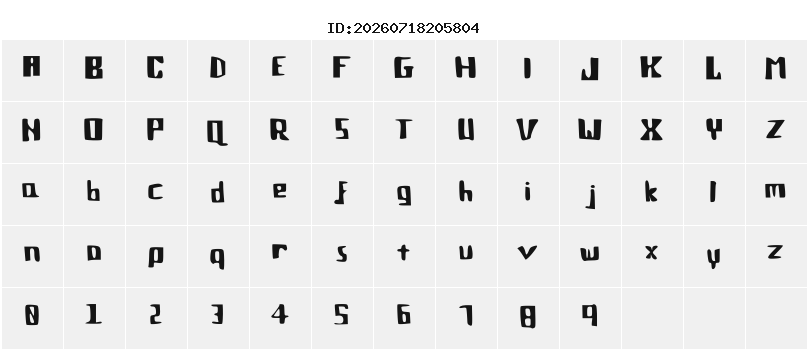
Cozumix Preview
• Font Name: Cozumix
• Full Font Name: Cozumix
About Cozumix.ttf
Cozumix.ttf is a modern, elegant sans-serif font designed for ultimate readability and visual harmony. Perfect for branding, headlines, web design, and print materials.